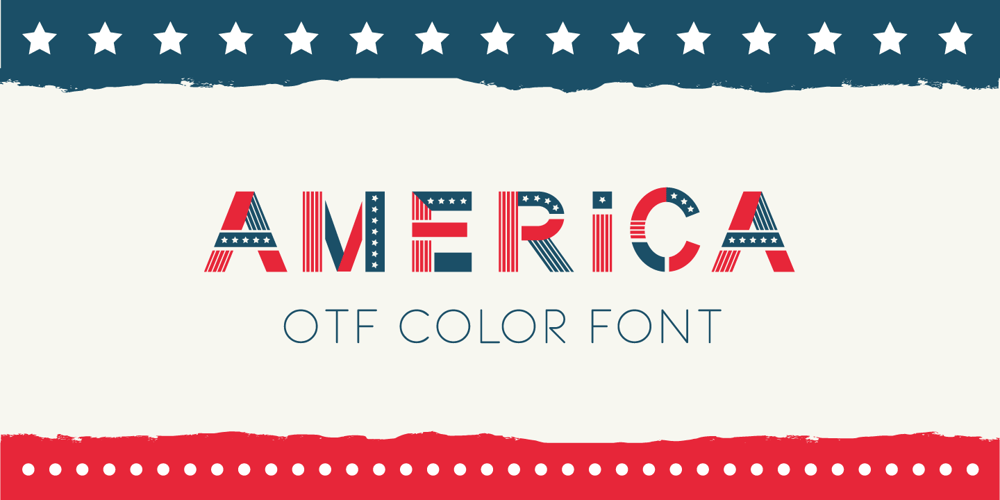
America Font Family was designed by Ksenia Kuznetsova and published by Peliken. America contains 1 styles and family package options. America otf color font. Letters and numbers in national flag design, stripes of red and blue, white stars ornament for festive decoration.You can use this font for design logos, quotes prints on t-shirts, Presidential election posters and other. OpenType-SVG Font was designed with Fontself Maker in Illustrator CC. WARNING Color fonts are pretty new technology – they currently show up in Photoshop CC 2017+, Illustrator CC 2018 and some Mac apps. Learn more about color font support on third-party apps here: https://www.colorfonts.wtf/